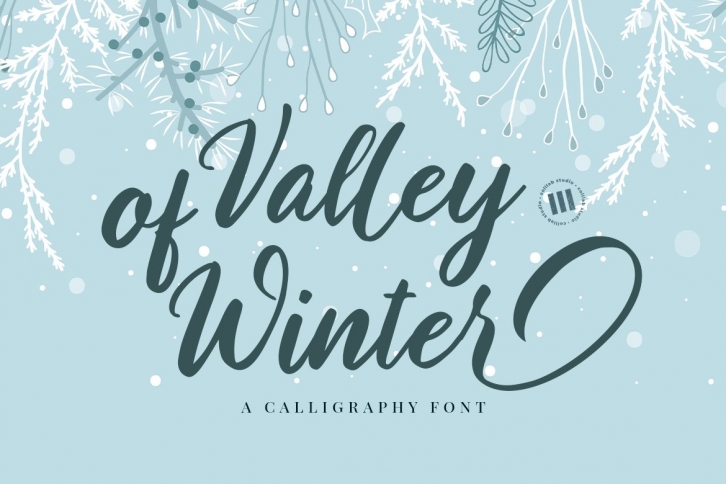
Valley of Winter- A Calligraphy is a beautiful font that was designed by colllab studio. It's a great choice for designers and creatives who need such a font. It was released on December 28, 2020 and the file size is 2.16 MB. Valley of Winter- A Calligraphy may give a more youthful, expressive and casual look to your project. It is a very beautiful, refined, elegant, and high-quality font.